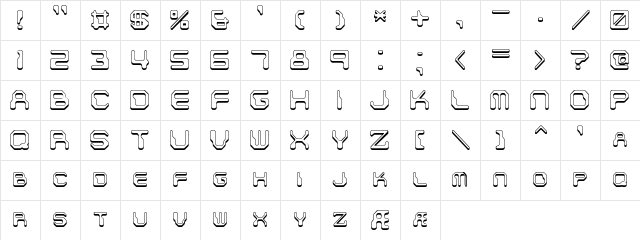
Chintzy CPU Shadow BRK Regular
| Foundry | ƎIGMA FONTS |
| Designer | ƎIGMA FONTS - Brian Kent |
Design Context for Chintzy CPU Shadow BRK Typeface
Chintzy CPU Shadow BRK is built around its visual character rather than neutral utility — its distinctive forms are designed to make an impression at display sizes.
Font Pairing: Pair with a clean neutral sans-serif for body copy to let Chintzy CPU Shadow BRK's character lead without overwhelming the composition.
Pro Tip: Treat Chintzy CPU Shadow BRK as the centrepiece of your typographic hierarchy. One strong heading set in a decorative face can carry an entire layout.